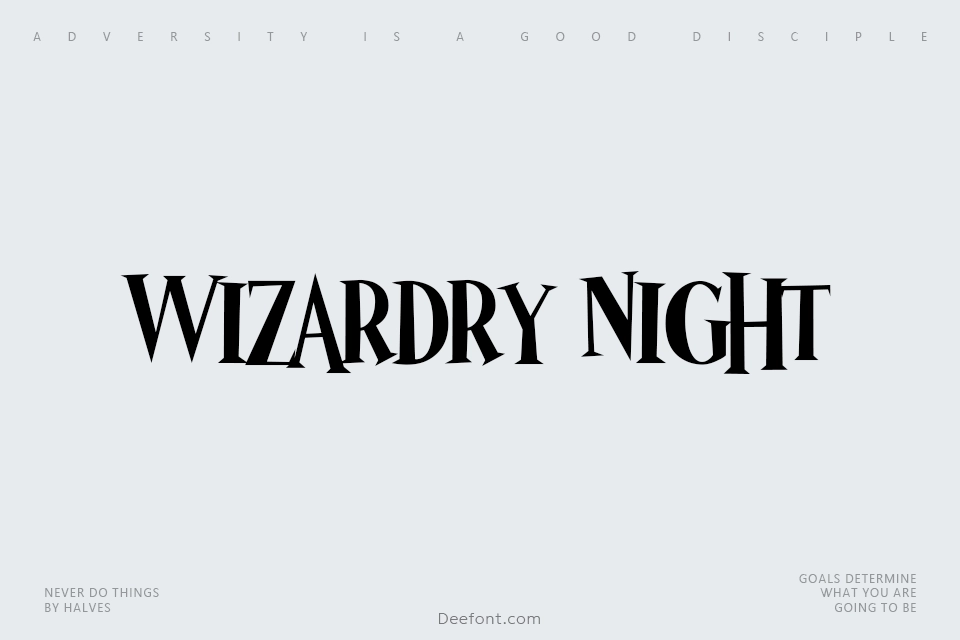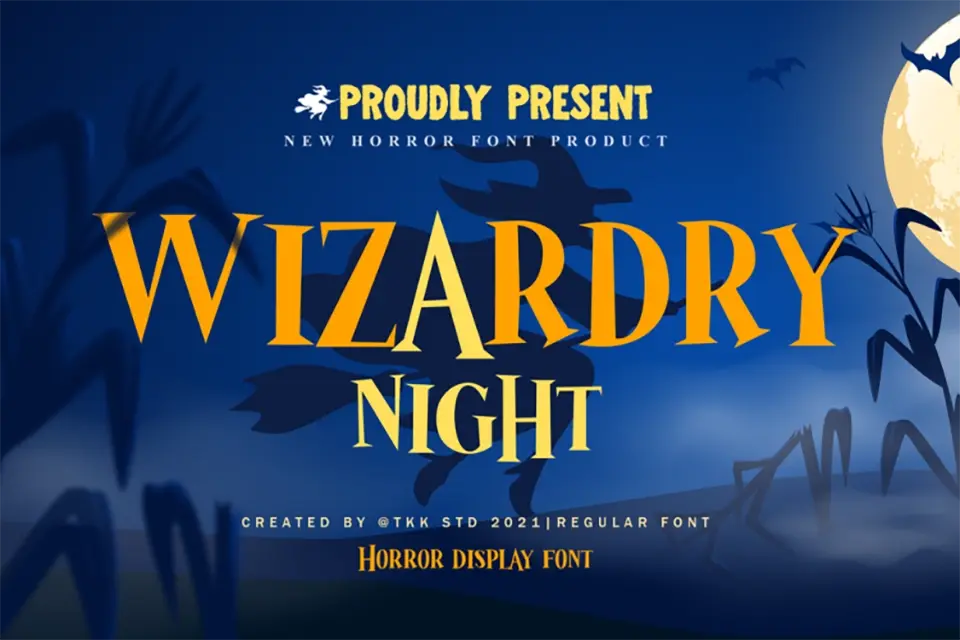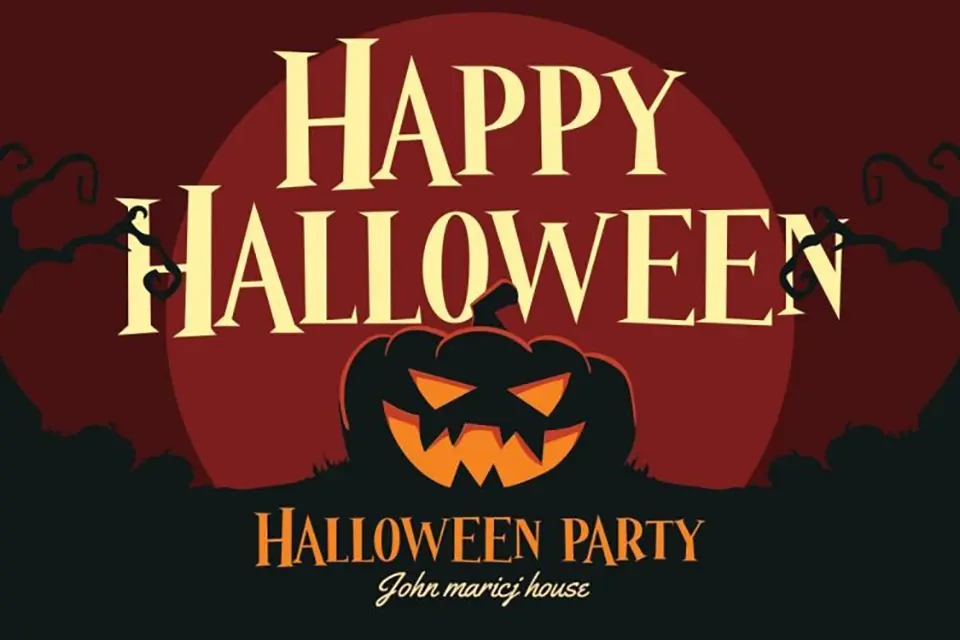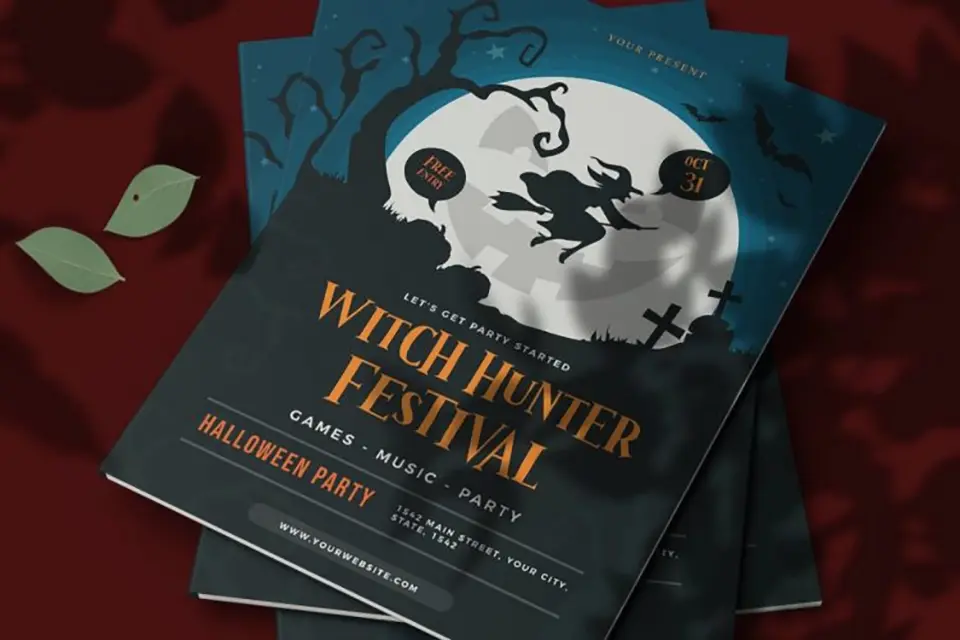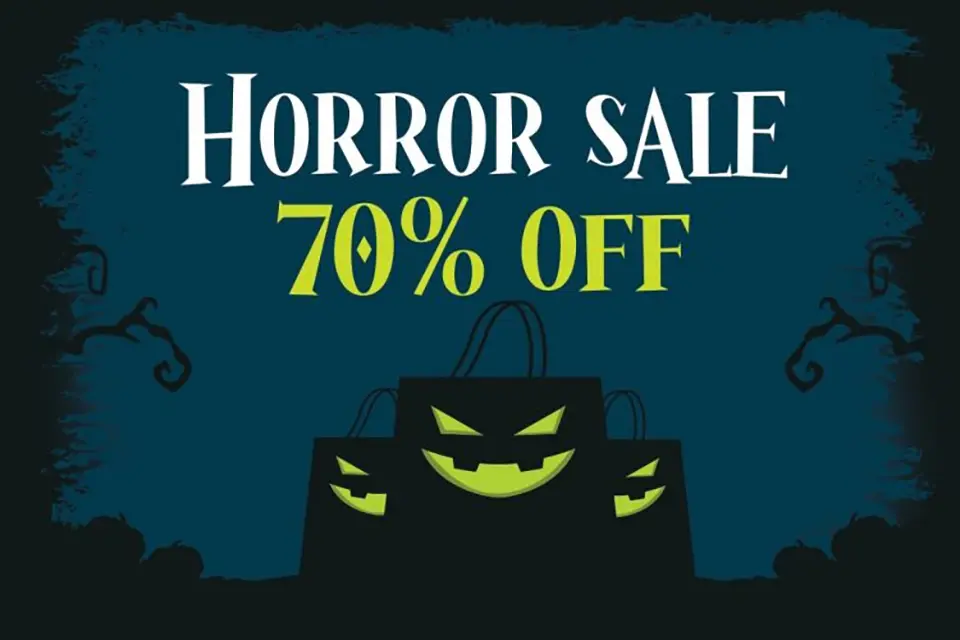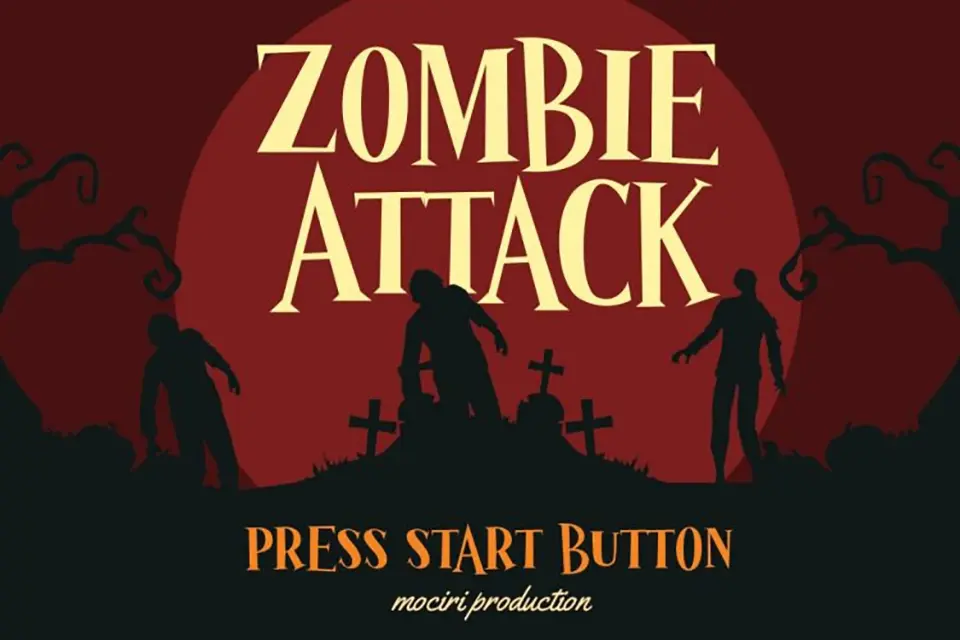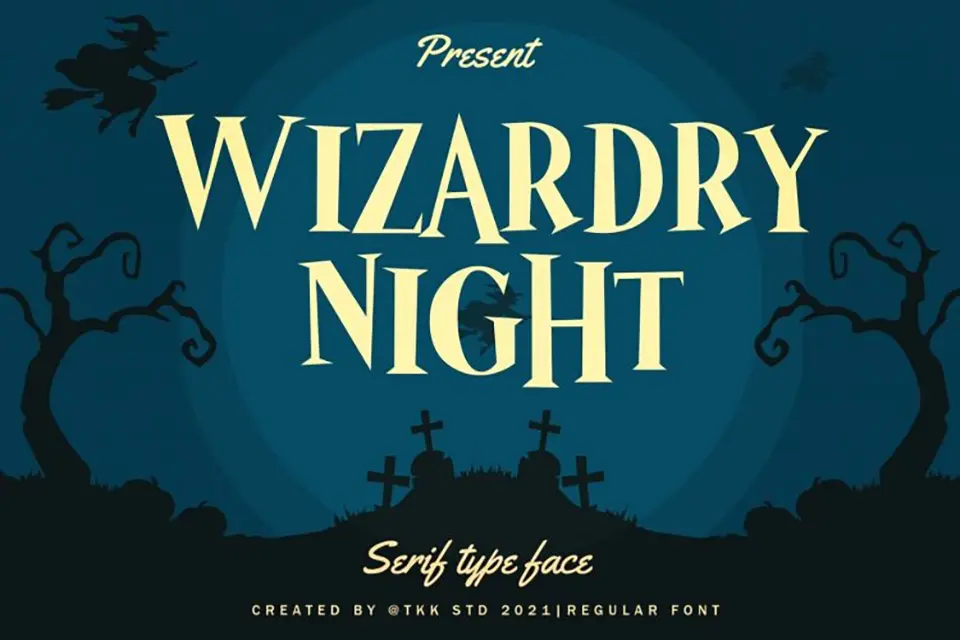
Wizardry Night Font
Wizardry Night is a mystical and eerie display font designed for horror-themed projects, Halloween events, and spellbinding creative designs. Combining sharp serifs with flowing curves, this typeface perfectly embodies the magical essence of wizards and the dark charm of the night. Its enchanting style ensures striking visual impact in titles, headers, and dramatic designs while maintaining excellent readability. Ideal for fantasy branding, movie posters, gaming projects, and mysterious invitations, Wizardry Night brings sophistication and an air of elegance to both digital and print formats.